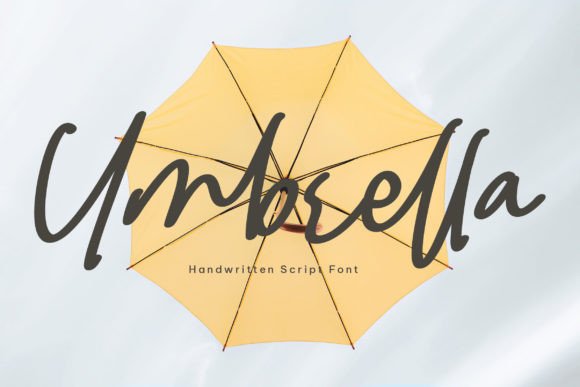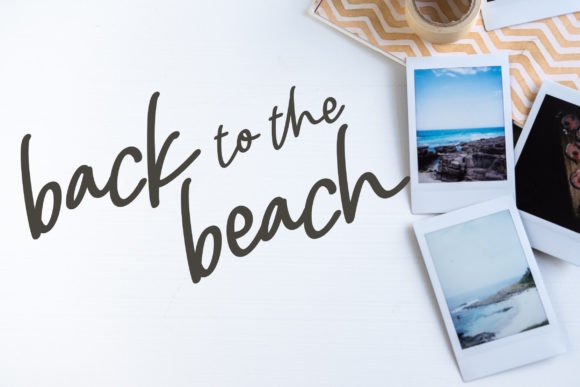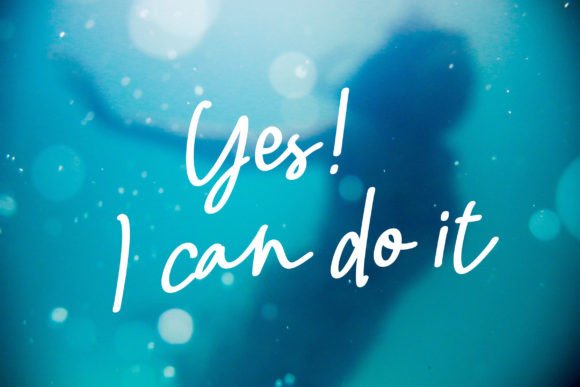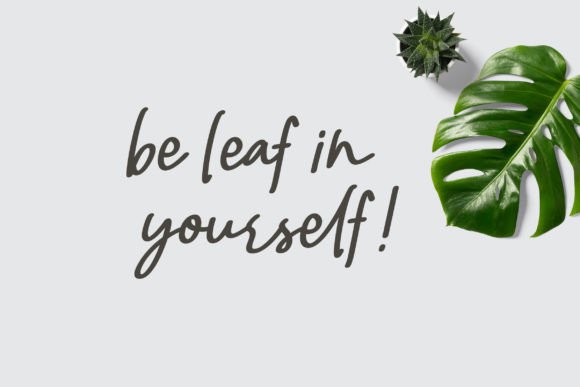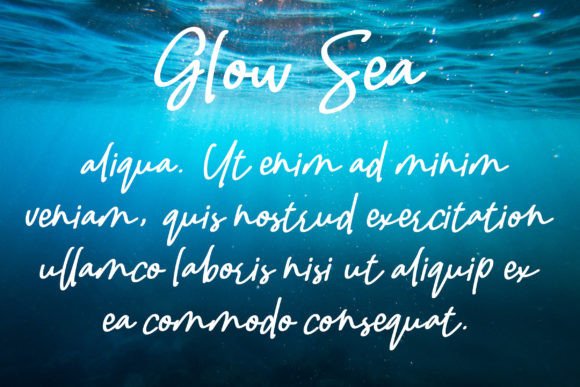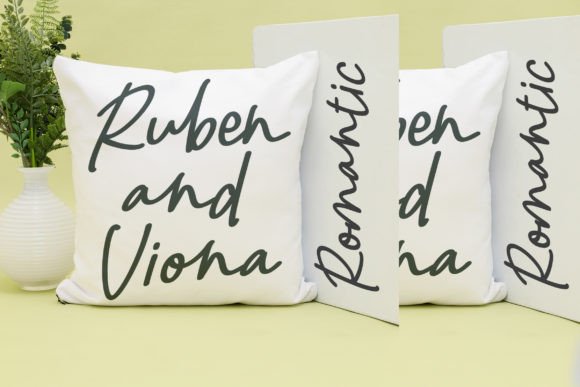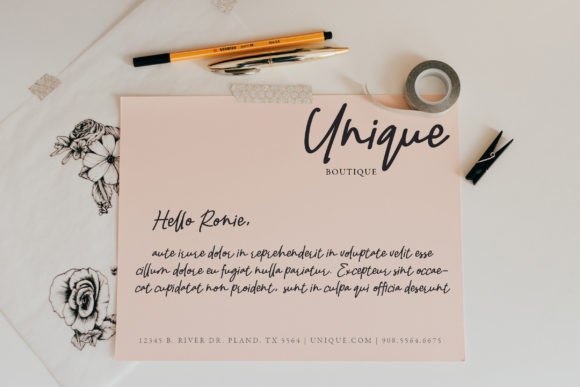
Umbrella Font
“Umbrella” is more than just a font; it’s a beautiful handwritten typeface that adds a touch of elegance to your designs. Meticulously crafted, this font is ideal for creating spectacular designs across various projects, including wedding invitations, thank you cards, quotes, greeting cards, logos, business cards, and any other design that benefits from a handwritten touch.
The beauty of “Umbrella” lies in its handwritten charm. Its graceful strokes and natural flow make it a stunning choice for projects where you want to convey a sense of warmth and personal touch. Whether used for wedding invitations that radiate beauty or business cards that make a lasting impression, this font delivers.
Imagine “Umbrella” enhancing wedding invitations, where its beauty adds a touch of elegance to the romantic atmosphere. Picture it on thank you cards, creating a heartfelt and handwritten expression of gratitude. Envision this font on logos or business cards, adding a unique and personal touch to your brand identity.
One of the standout features of “Umbrella” is its PUA encoding, allowing easy access to all of the glyphs and swashes. This feature enhances your creative freedom, enabling you to explore different characters and styles effortlessly.
Whether you’re working on personal projects or professional branding, “Umbrella” offers a beautiful handwritten typeface that adapts to your creative vision. It’s not just a font; it’s a creative tool that brings a touch of elegance to your designs. Let “Umbrella” be the stunning script that transforms your projects into visually captivating and memorable works of art.